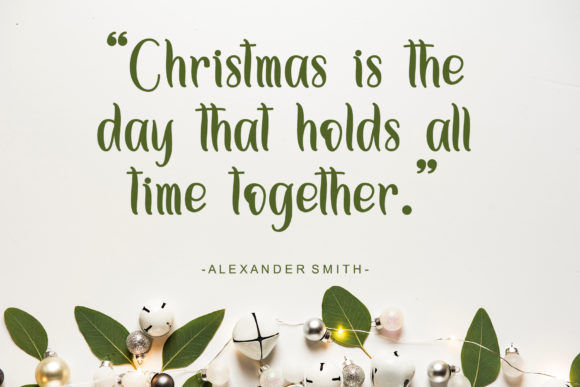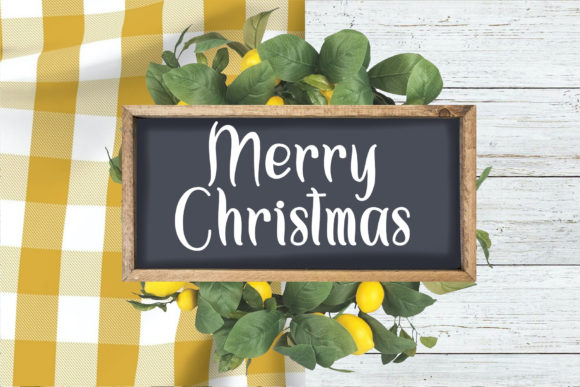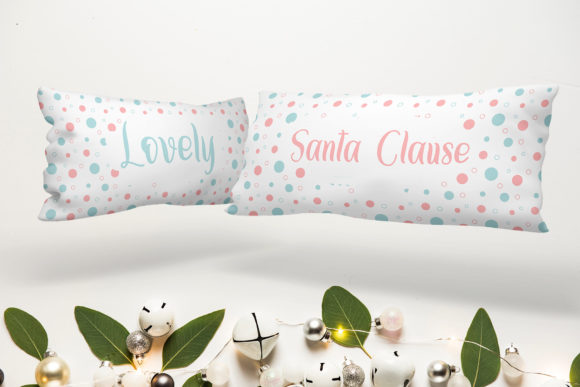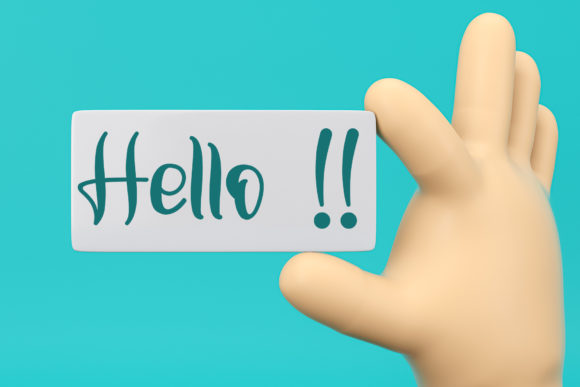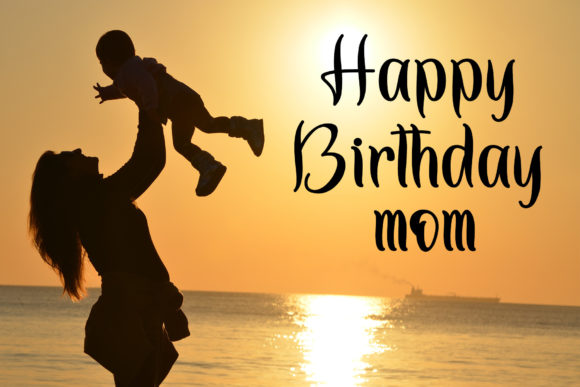
About Christmas Heart Font
Christmas HeartĀ feels incredibly elegant and flowing. It looks stunning on wedding invitations, thank you cards, quotes, greeting cards, logos, business cards and every other design which needs a handwritten touch. It features a varying baseline, smooth lines, gorgeous glyphs and stunning alternates.